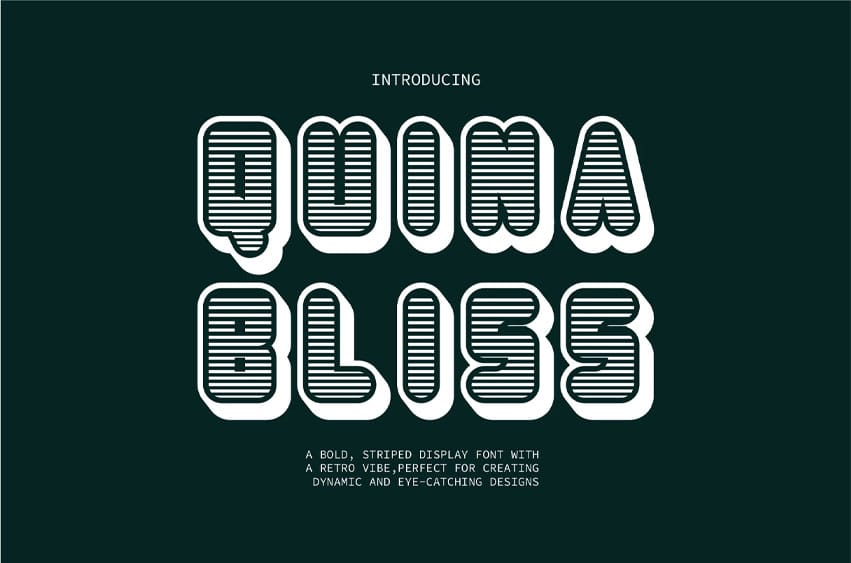
Quina Bliss Font is a striking, bold font with striped details that bring a vibrant, retro vibe to any design. Perfect for projects that aim to capture attention, this font works wonderfully in headlines, logos, posters, and branding materials.